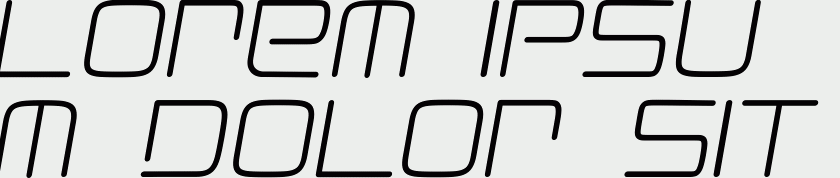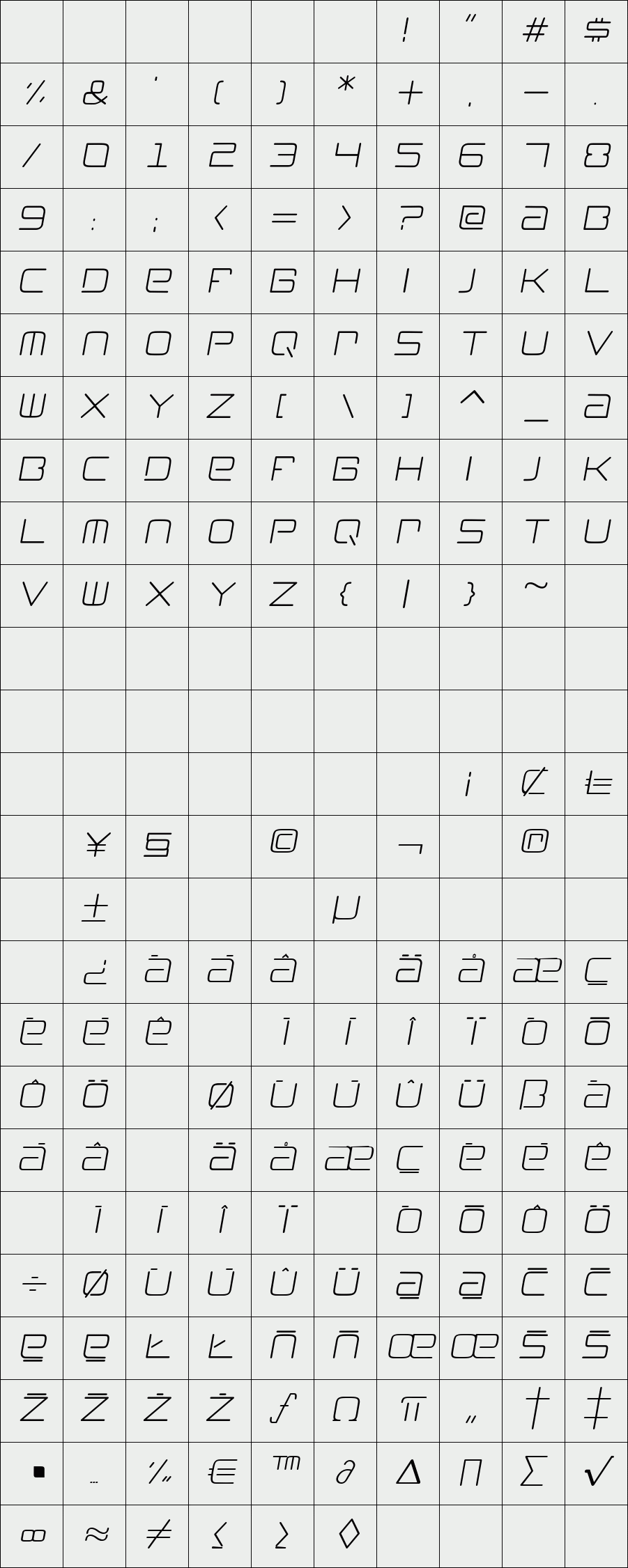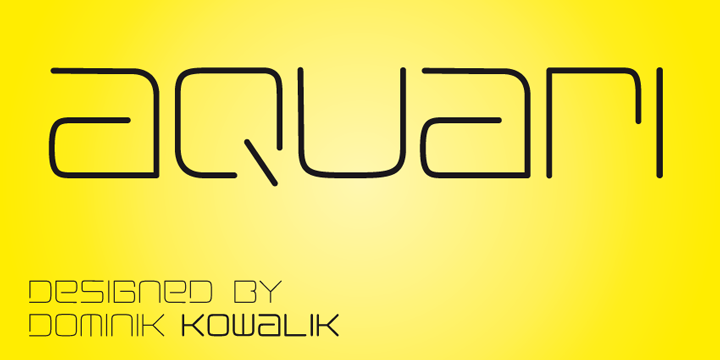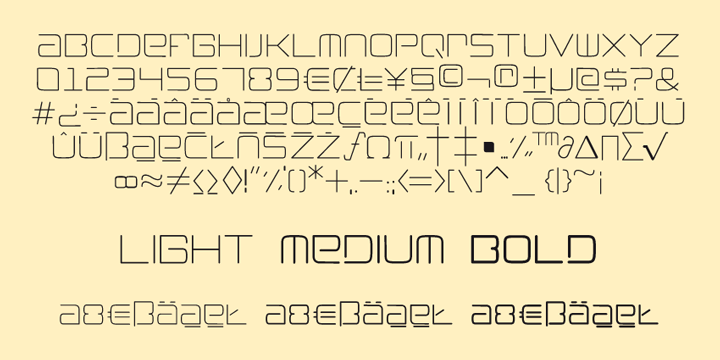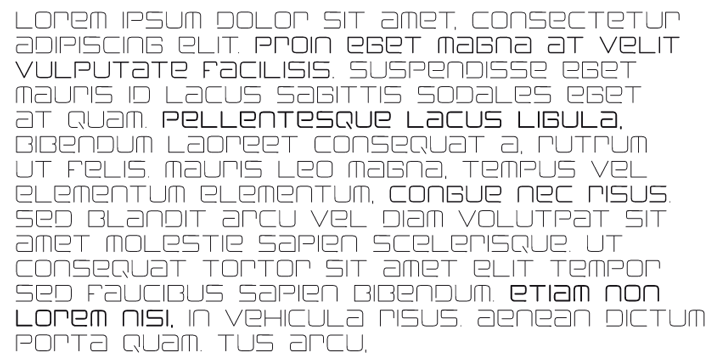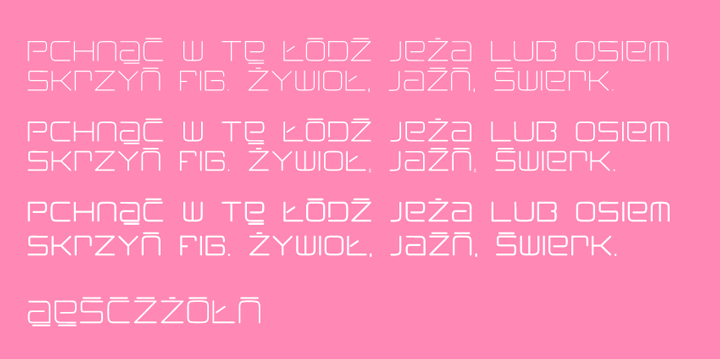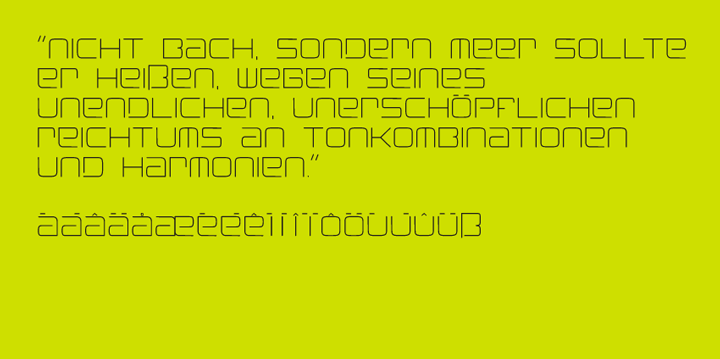
Aquari
/ Aquari Medium Italic
A geometric typeface. Smooth corners are mixed with straight angles to form a strong. These make Aquari ideal for almost any type of graphic design.
Its unique look is well suited for corporate identity, its precise drawing for branding and poster design.
The character set includes various OpenType features and a broad language support with German and Polish special signs.
Details include 3 weights, with European character set, manually edited kerning, stylistic
alternatives and Opentype features.
2 styles
3 weights
2 grades of dynamics
Designer: Dominik Kowalik